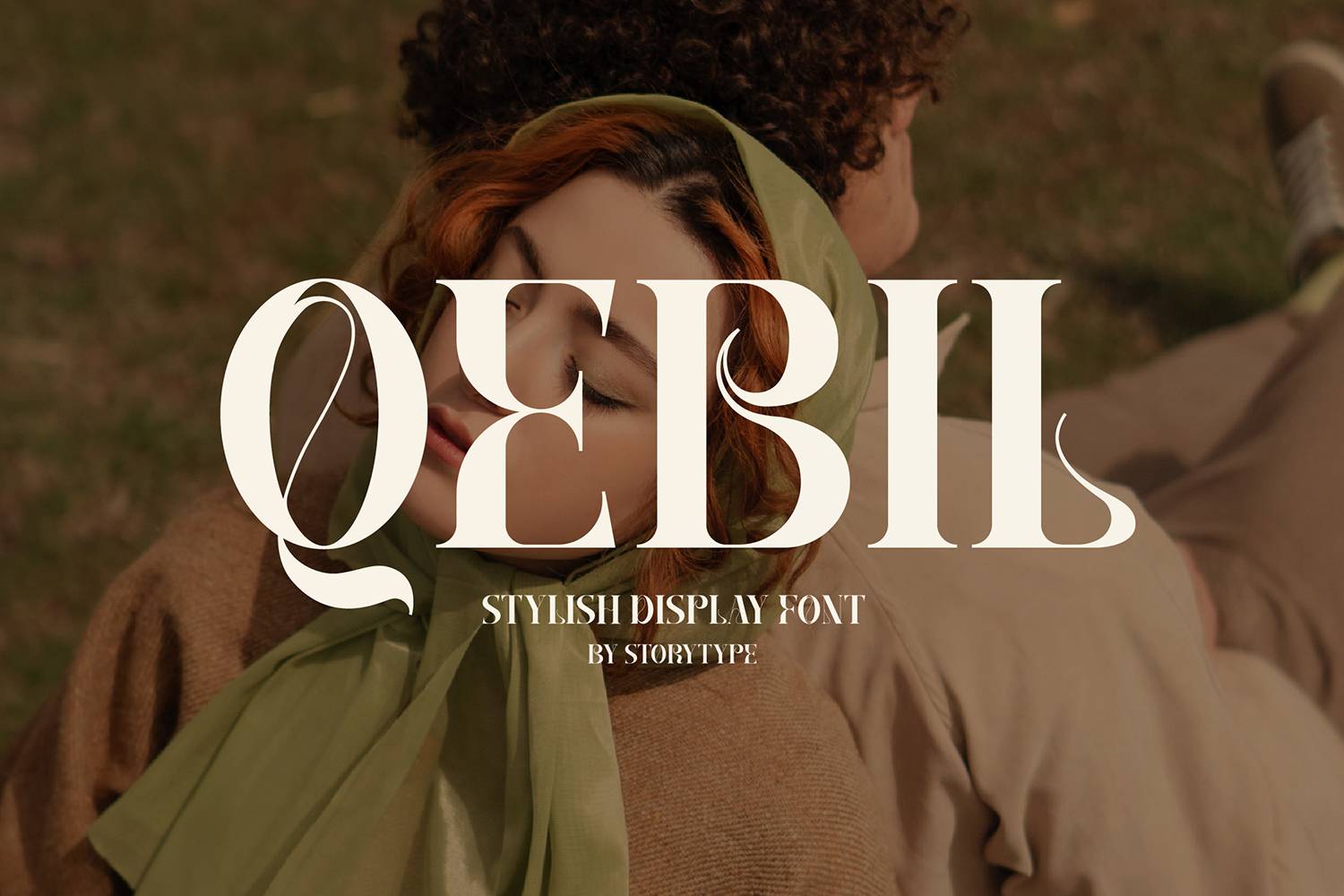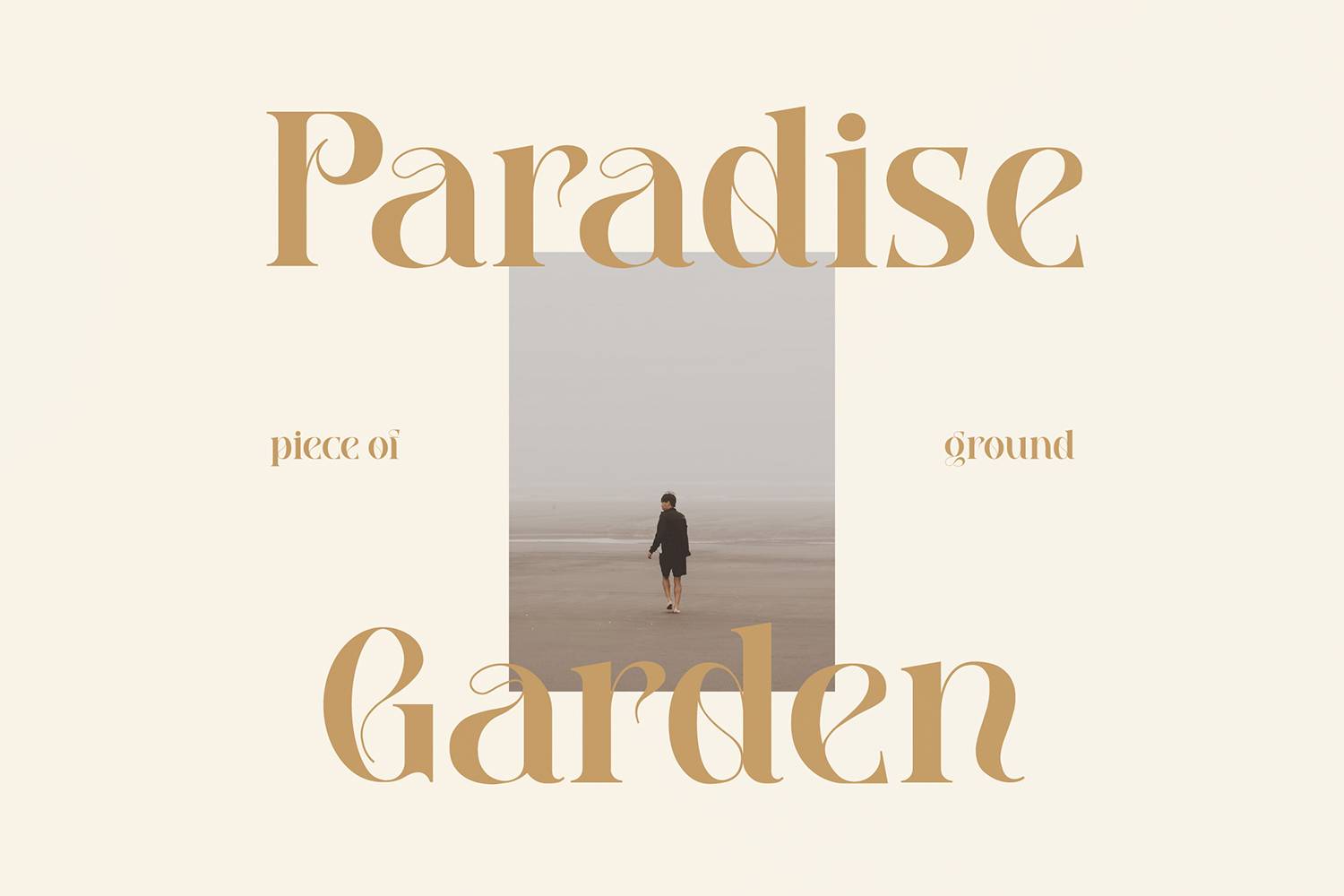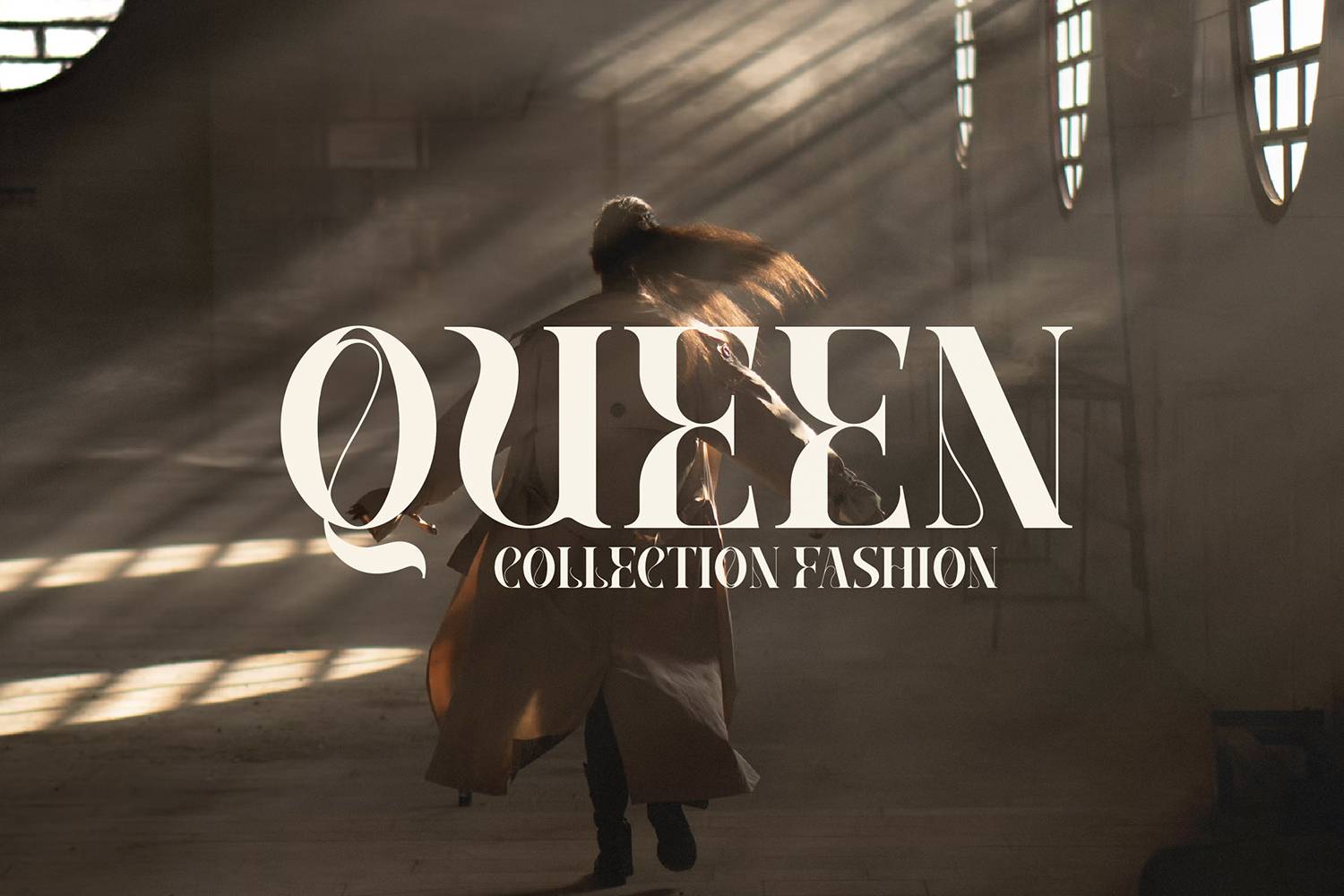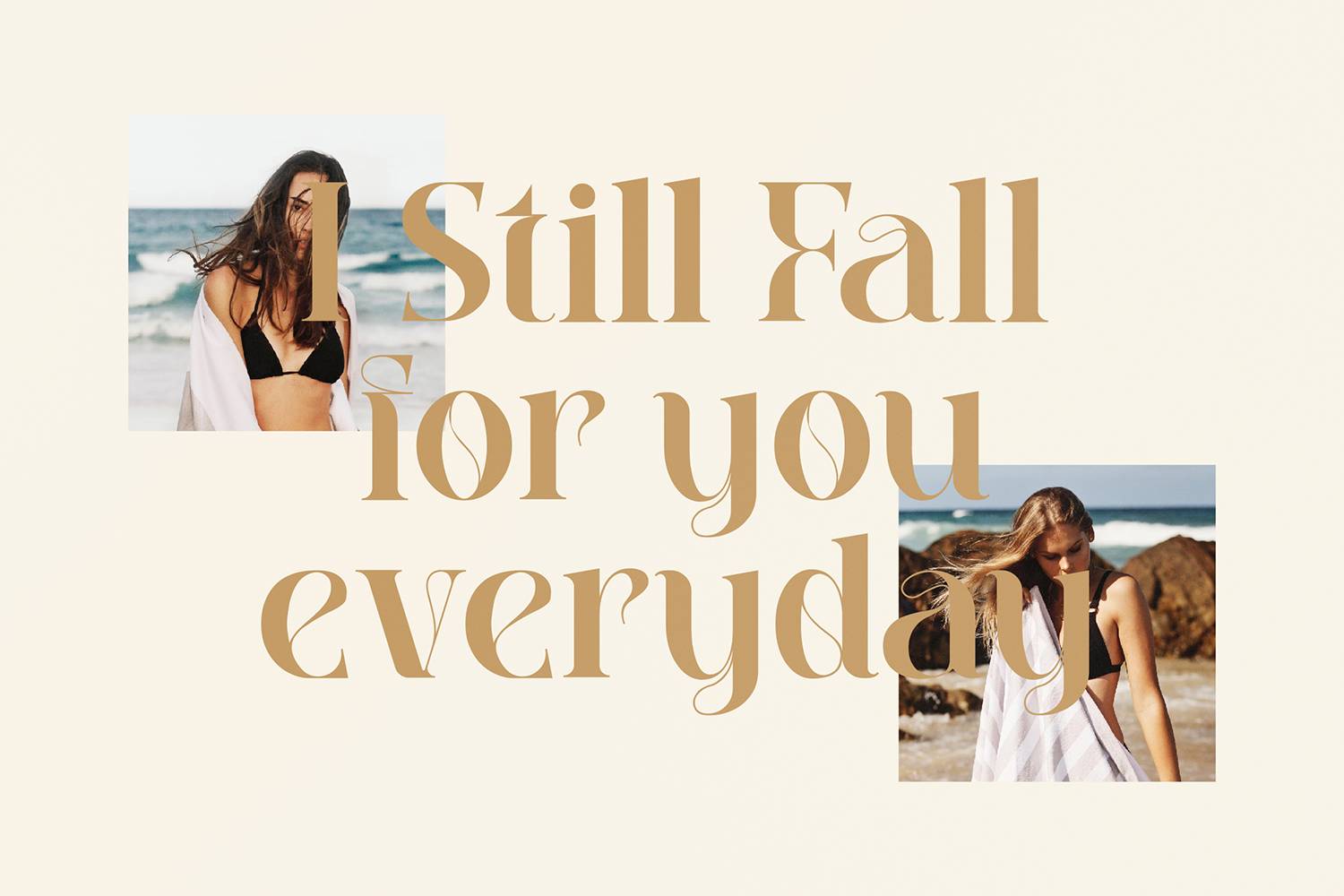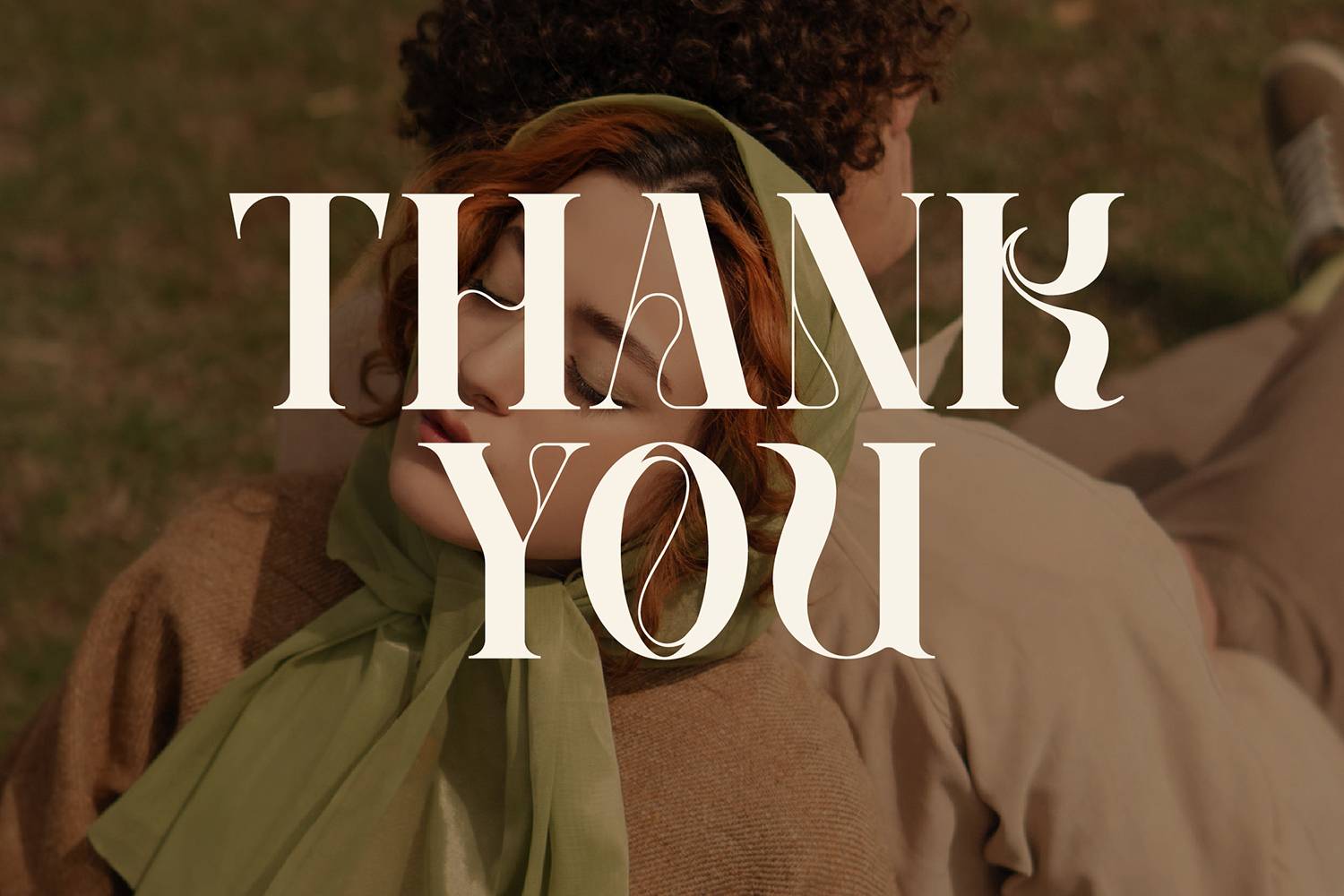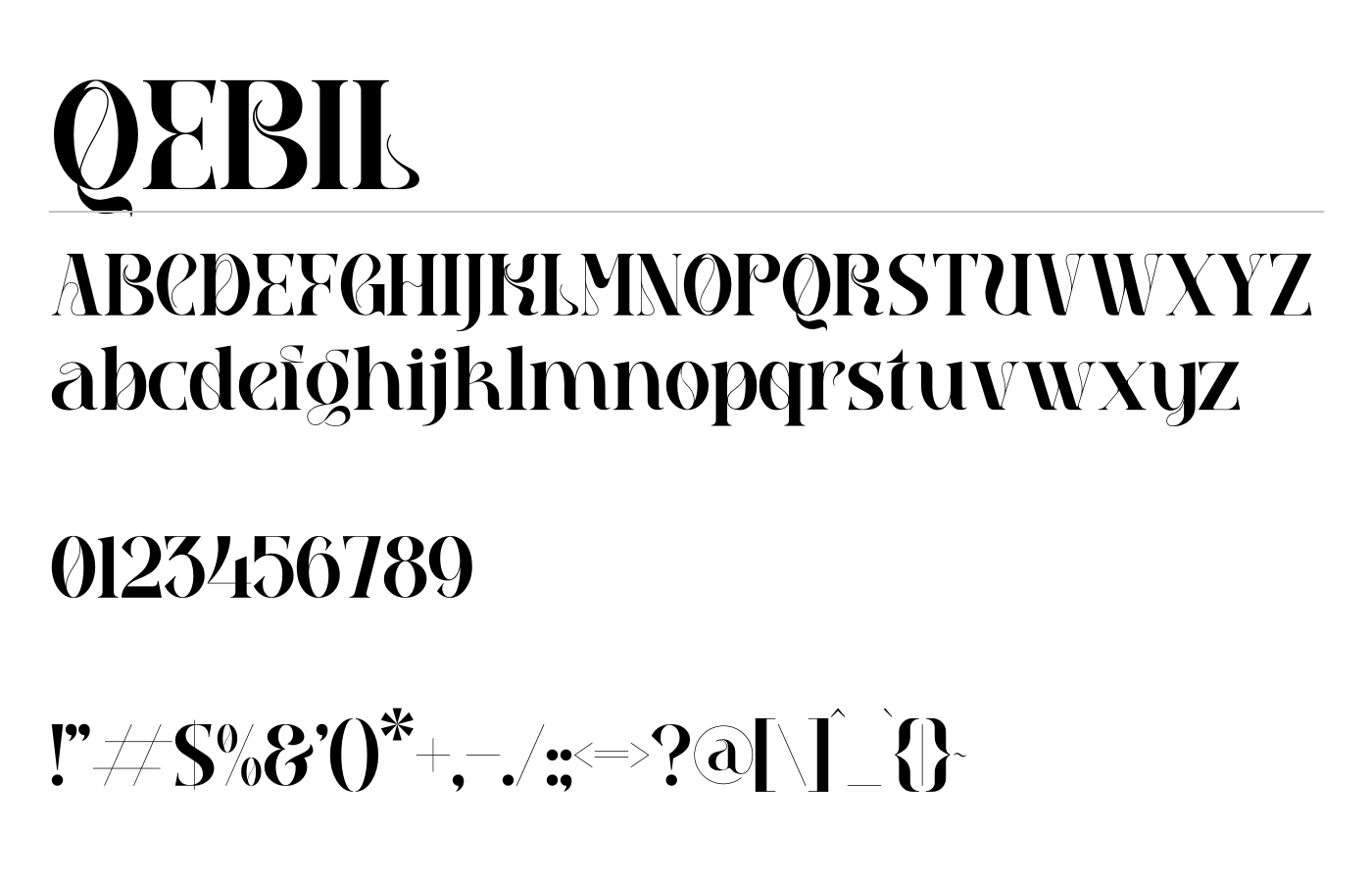
Qebil is a striking serif font that blends modern elegance with high contrast between thick and thin strokes, featuring unique curving details and delicate looped terminals. Its narrow width and stylized letterforms give it a sophisticated, artistic flair ideal for luxury branding, editorial headlines, and creative logo design. This font commands attention while maintaining readability, making it perfect for projects aiming to convey refinement and bold personality.
Qebil Font
About Qebil Font